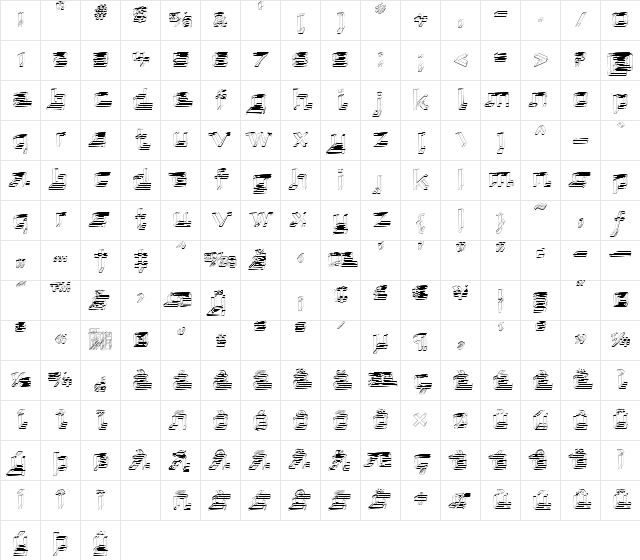
Republika - Sketch Regular
Republika - Sketch Family
Design Context for Republika - Sketch
Republika - Sketch is a composed and adaptable typeface that performs quietly and consistently across a wide range of design contexts.